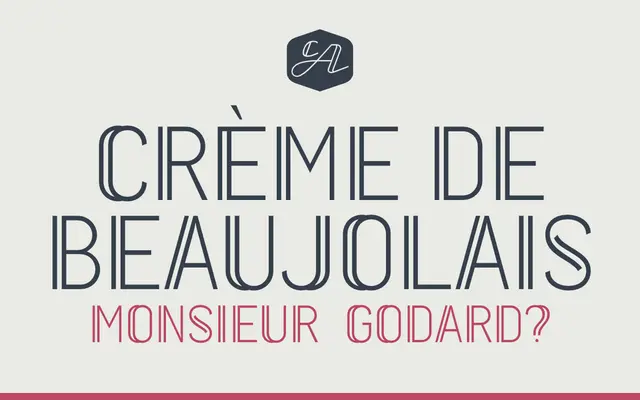
CA Fourty Open
Cape Arcona · Thomas Schostok
A single-weight, all-caps display face built around a double-outline structure that evokes neon signage, arriving after 40 design iterations.
Thomas Schostok developed this typeface through 40 attempts to nail a neon-sign aesthetic, landing on a double-outline construction that gives letterforms a strong, open quality suited to headlines. Although it is an all-caps design, the uppercase and lowercase characters differ in openness, adding subtle rhythm. It shares a base with CA BND and pairs well with the double-lined script CA Capoli, and supports Western and Central European character sets across 365 glyphs.
An all-caps neon-sign-style display face with a double-outline construction, designed explicitly for headlines rather than text use. The foundry classifies it as Display.